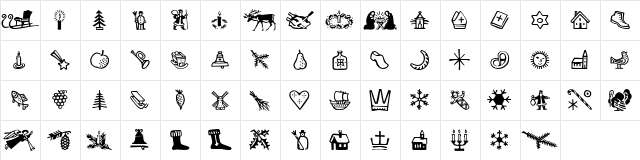
GE Itty Bittys Regular
Design Context for GE Itty Bittys Typeface
GE Itty Bittys is a composed and adaptable typeface that performs quietly and consistently across a wide range of design contexts.